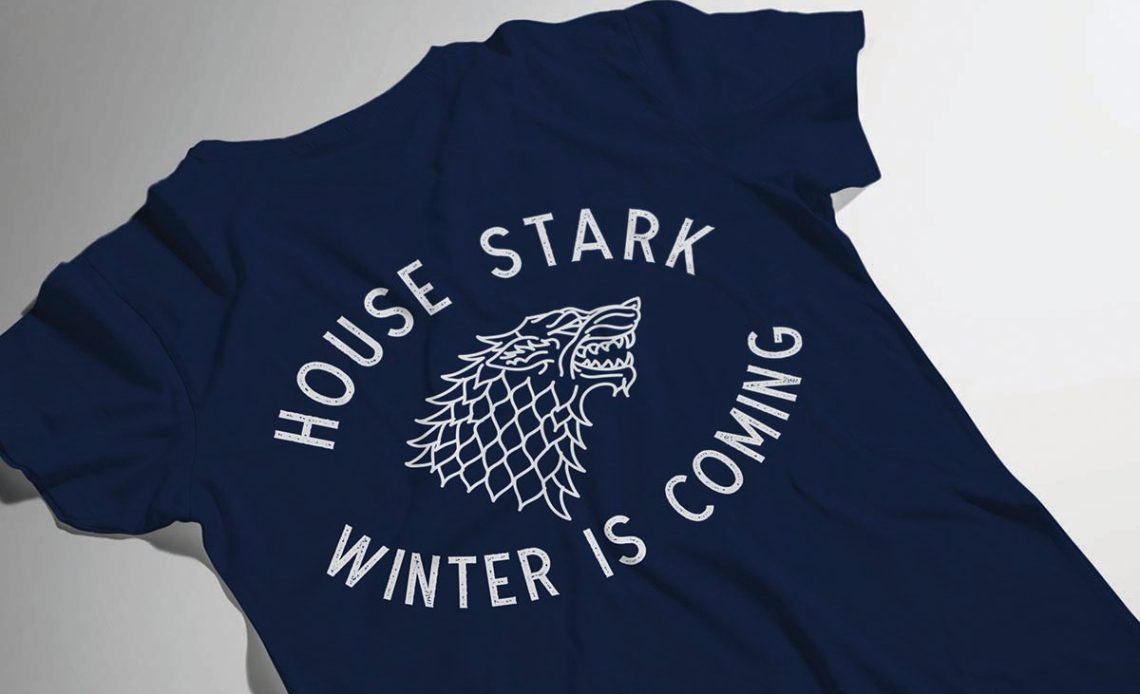
Introducing The Dodger + Extras, an extraordinary collection of 11 fonts designed by the talented Umar Al Farouq. This sans serif font family is not only visually stunning but also incredibly versatile, making it the perfect choice for various creative projects.
Are you looking to add a touch of elegance and sophistication to your designs? The Dodger is the answer. With its carefully handcrafted design, this font family exudes a sense of craftsmanship and attention to detail that is sure to captivate your audience.
Whether you're working on branding, T-shirt designs, wedding invitations, vintage-inspired projects, or even a logotype, The Dodger has got you covered. Its five unique styles offer endless possibilities, allowing you to create stunning and impactful designs effortlessly.
But that's not all. As a bonus, The Dodger also includes a script font that adds a touch of elegance and fluidity to your designs. This extra element takes your creativity to new heights, enabling you to craft designs that truly stand out from the crowd.
But it doesn't stop there. The Dodger also boasts multilingual support, allowing you to use the font in over 20 languages. No matter where your audience is located, you can communicate your message effectively and effortlessly.
Additionally, The Dodger offers a range of special characters that add uniqueness and flair to your designs. These special characters can be easily accessed, giving you the freedom to create eye-catching and memorable typography.
Don't miss out on the opportunity to elevate your designs to new heights. The Dodger + Extras is the font collection you've been waiting for. With its exceptional versatility, handcrafted design, and bonus script font, it's the perfect choice for designers and creatives looking to make a lasting impact.